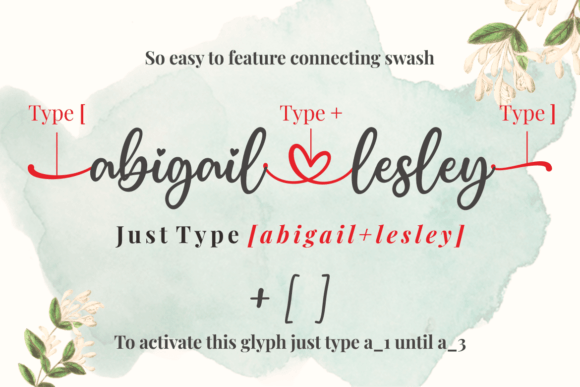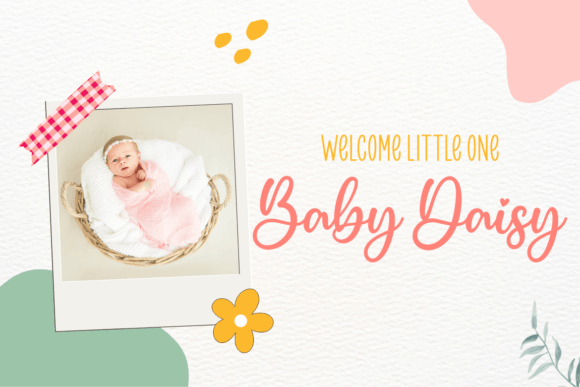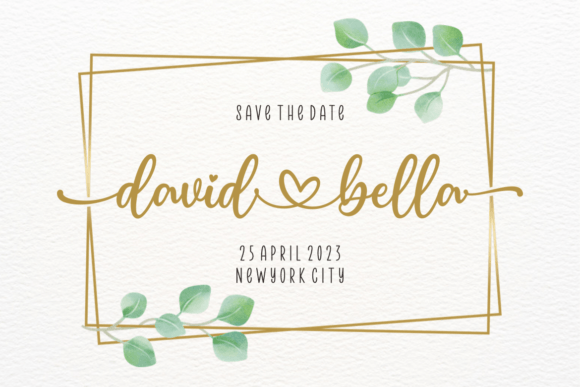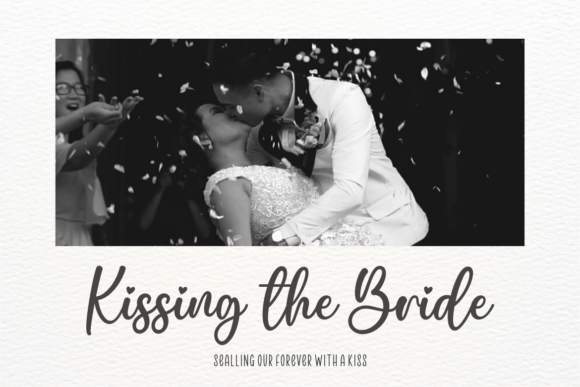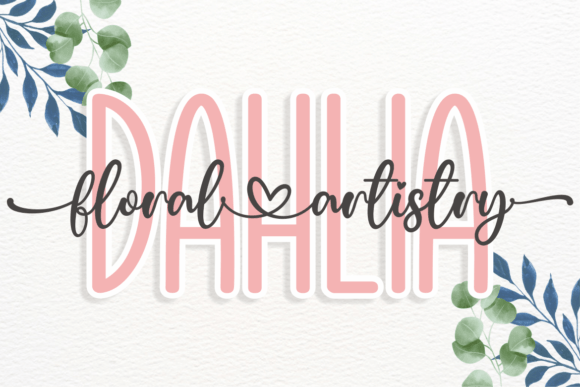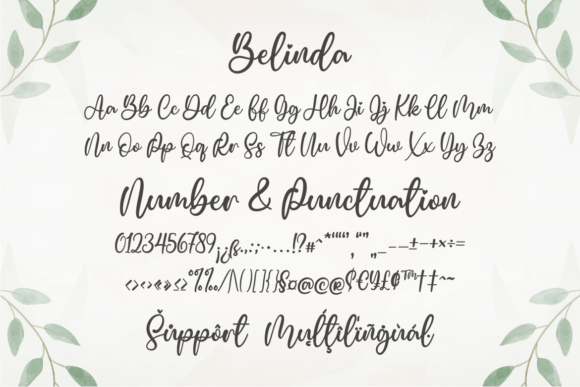
Introducing Belinda Font: The Perfect Combination of Handwritten and Sans Serif
Are you a designer or crafter looking for a font that can add a touch of chic and cheery to your projects? Look no further than Belinda Font! This versatile font consists of two complementary fonts – handwritten and sans serif – that can be used together or apart to elevate your crafts.
A Perfect Pairing: Handwritten and Sans Serif
Belinda Font is a unique combination of two fonts that are designed to work perfectly together. The handwritten font is elegant and cursive, with flowing lines and a personal touch. On the other hand, the sans serif font is clean, modern, and minimalist. When used together, they create a beautiful contrast that adds visual interest to any project.
The handwritten font is perfect for adding a touch of warmth and personality to your designs. It’s ideal for creating invitations, greeting cards, and other personal projects. The sans serif font, on the other hand, is great for creating headings, titles, and other design elements that require a clean and modern look.
Clean and Contemporary Design
One of the standout features of Belinda Font is its clean and contemporary design. Each character is carefully crafted to have a sleek and modern look that will complement any design. The shapes are simple, yet elegant, making it easy to pair with other fonts or use on its own.
The clean design of Belinda Font also makes it highly legible, even at small sizes. This makes it perfect for use in a variety of applications, from digital designs to print materials.
Belinda Font is a versatile font that is ideal for designers and crafters alike. Whether you’re creating digital designs, print materials, or handmade crafts, this font is sure to add a touch of chic and cheery to your projects.
For designers, Belinda Font is a great addition to any font library. It’s perfect for creating a wide range of designs, from elegant wedding invitations to modern branding materials. For crafters, this font is ideal for creating handmade cards, gift tags, and other paper crafts.
Tips for Using Belinda Font
Here are a few tips for getting the most out of Belinda Font:
- Use the handwritten font for personal projects, such as invitations and greeting cards.
- Use the sans serif font for headings and titles to add a clean and modern touch.
- Experiment with different font sizes and combinations to create visual interest.
- Pair Belinda Font with other fonts to create a unique and personalized look.
Belinda Font is a versatile and stylish font that is perfect for designers and crafters alike. With its clean and contemporary design, this font is sure to add a touch of chic and cheery to any project. Whether you’re using the handwritten font, the sans serif font, or both, Belinda Font is a great choice for anyone looking to elevate their designs.
So why not give Belinda Font a try? With its flexibility, legibility, and stylish design, it’s sure to become a favorite in your font library.